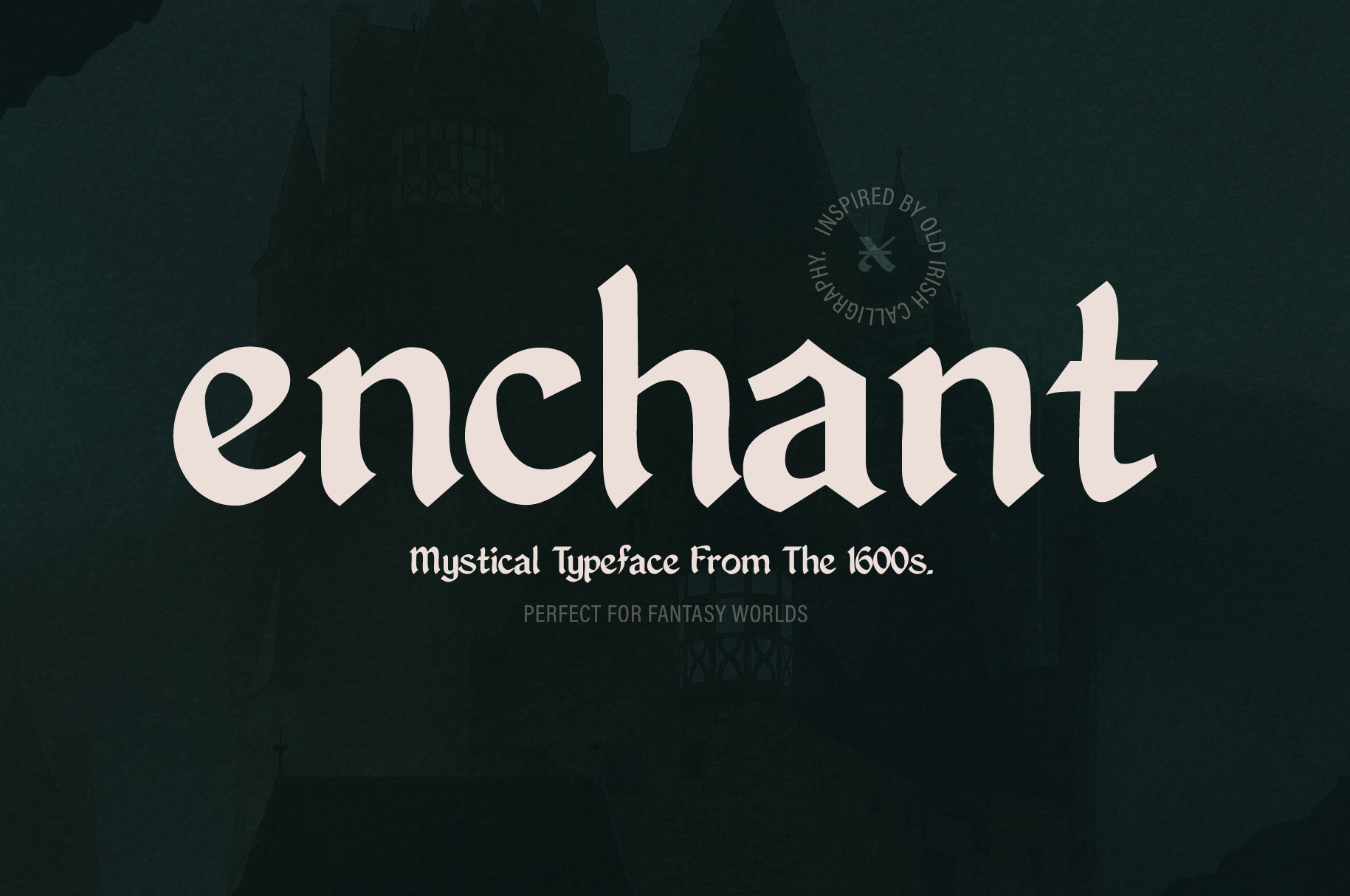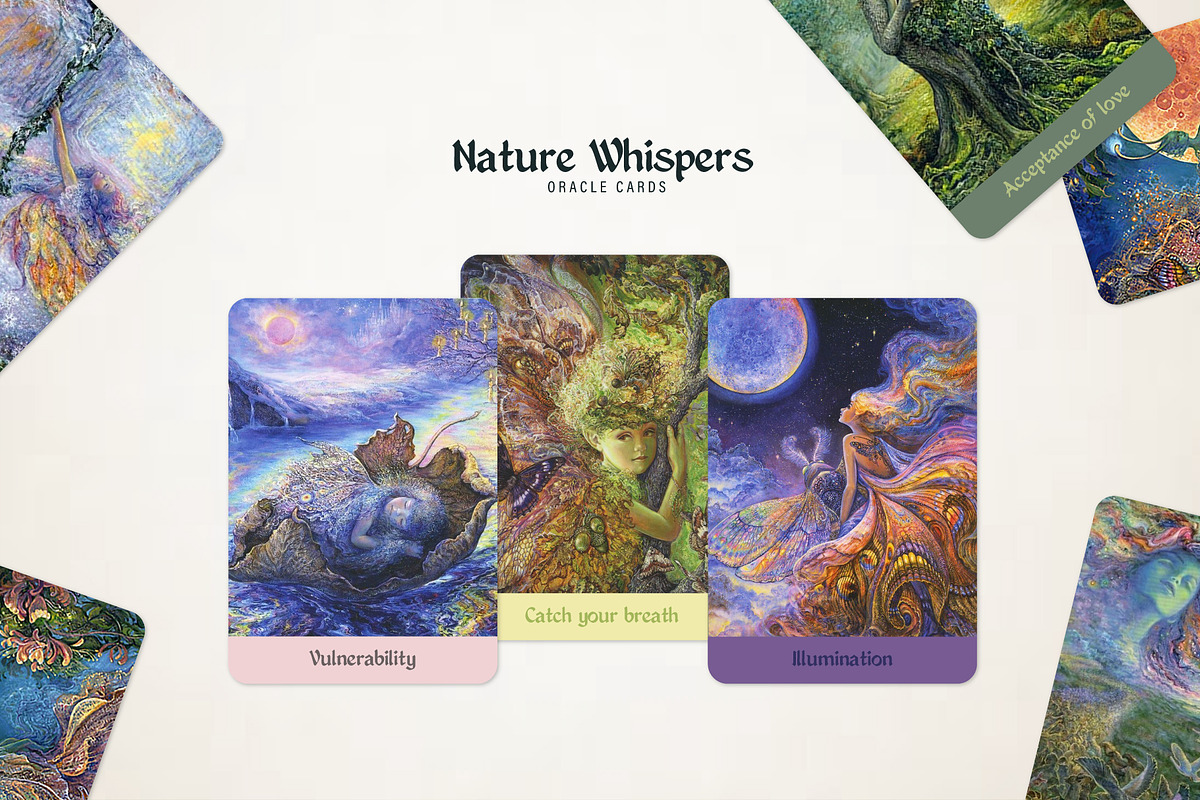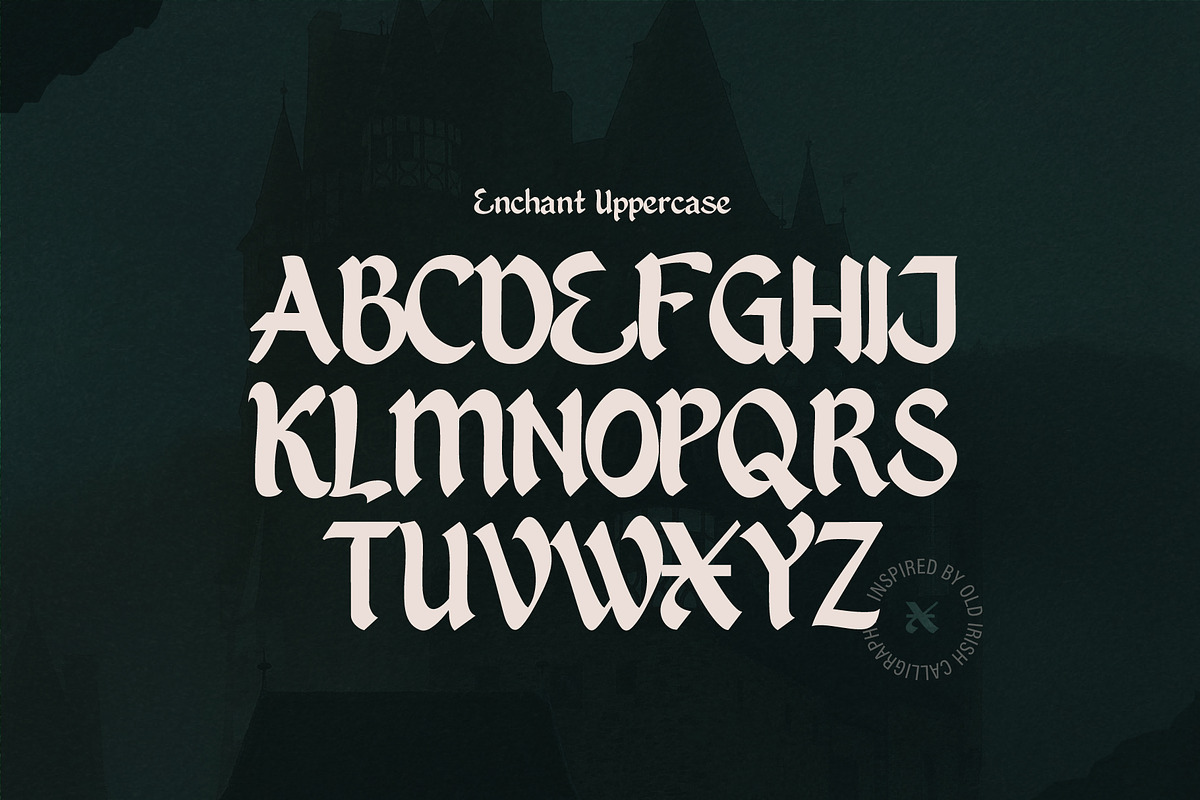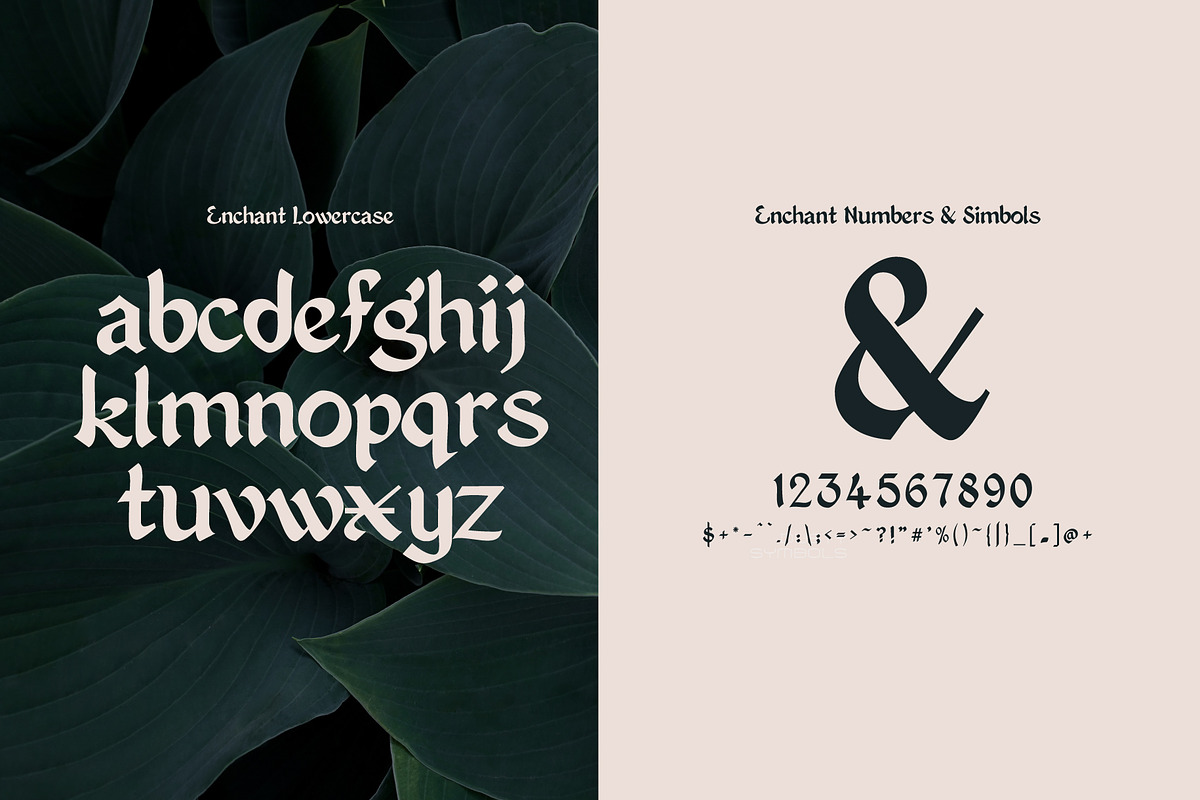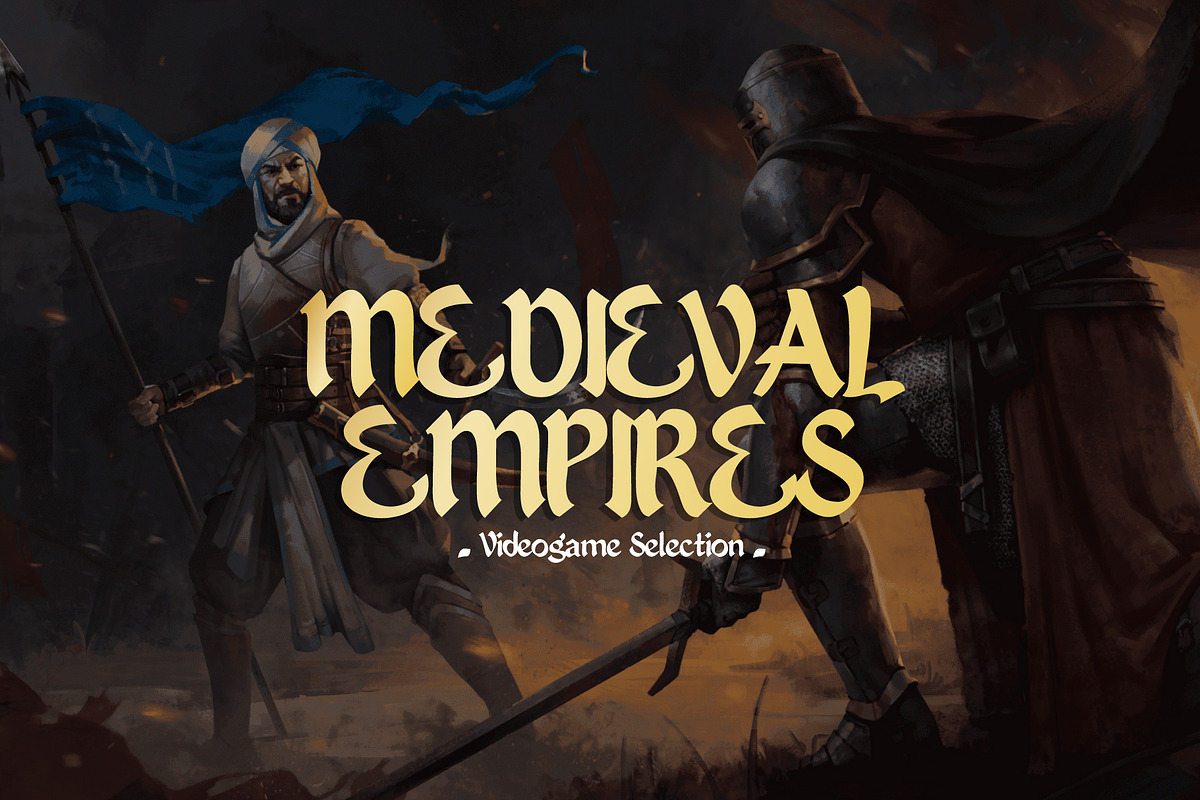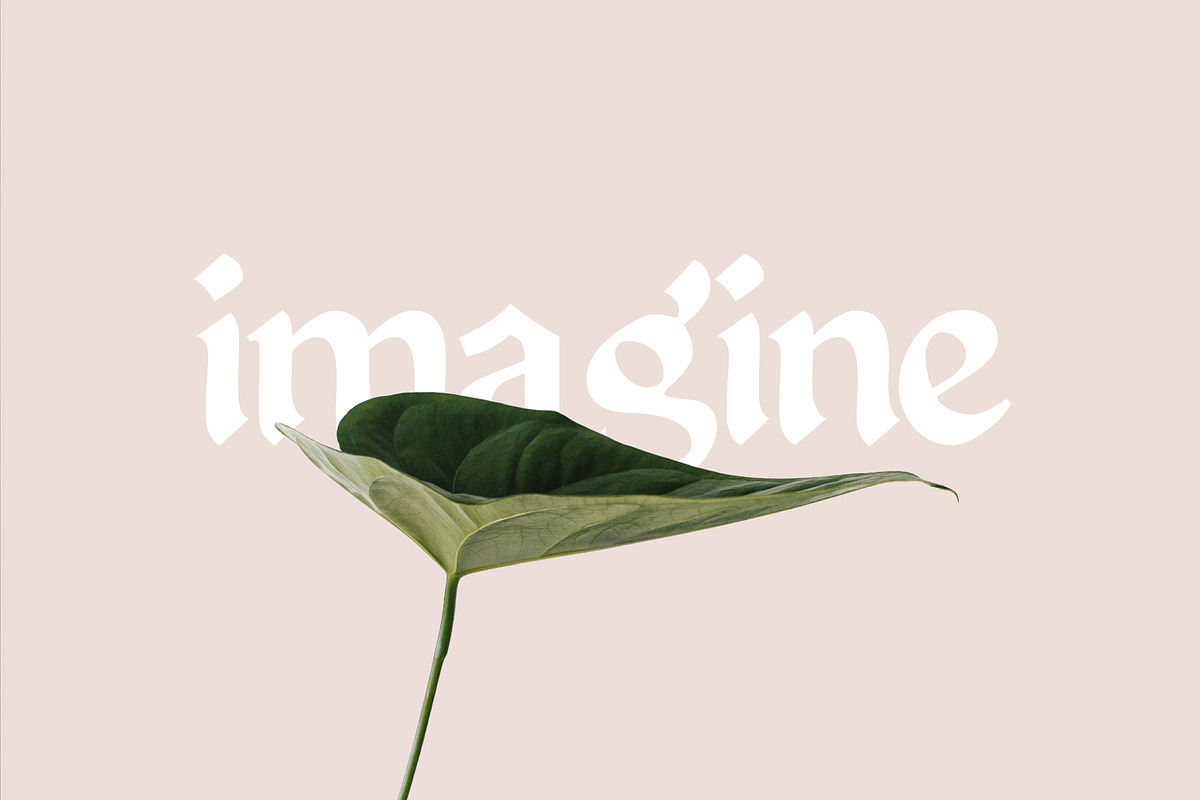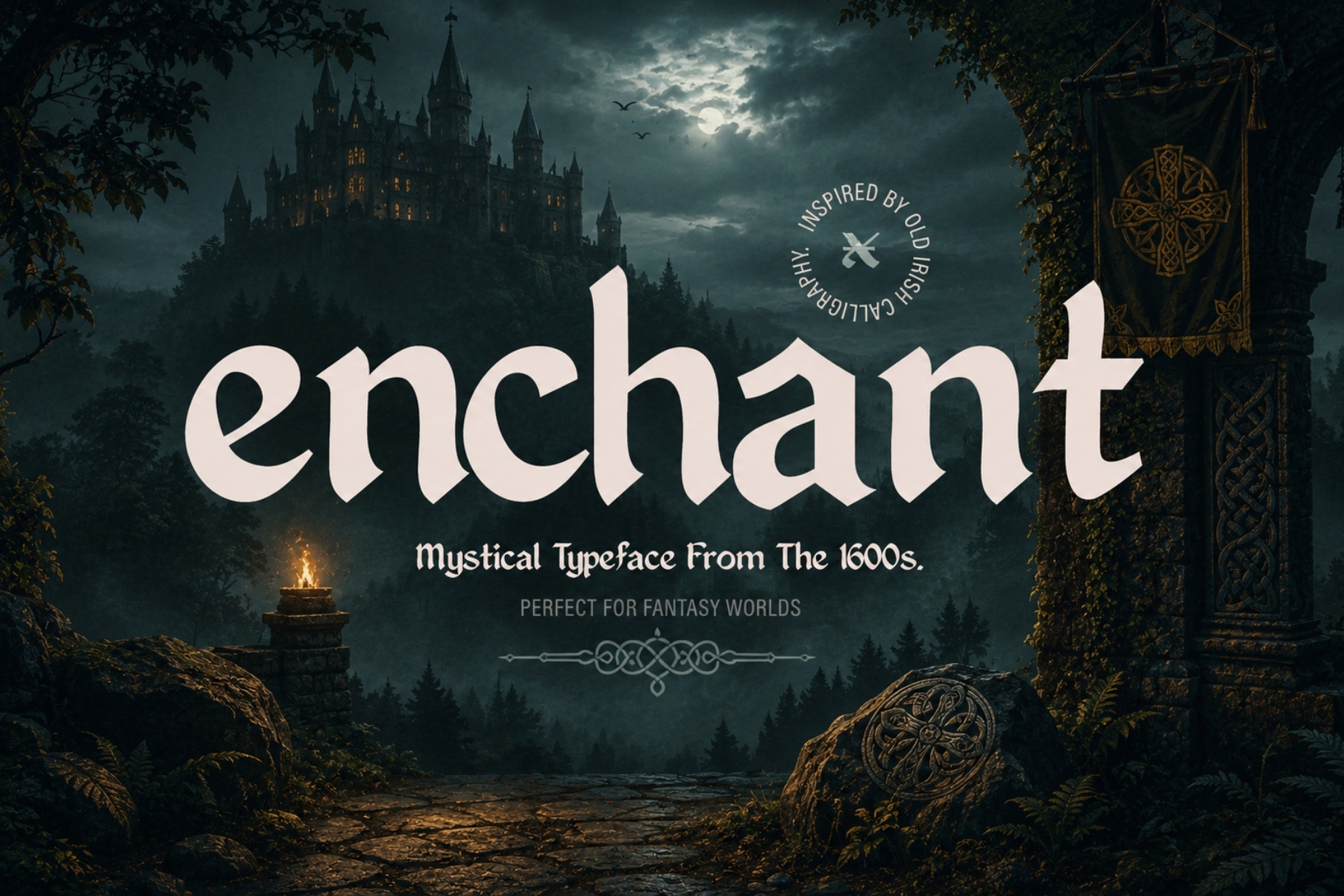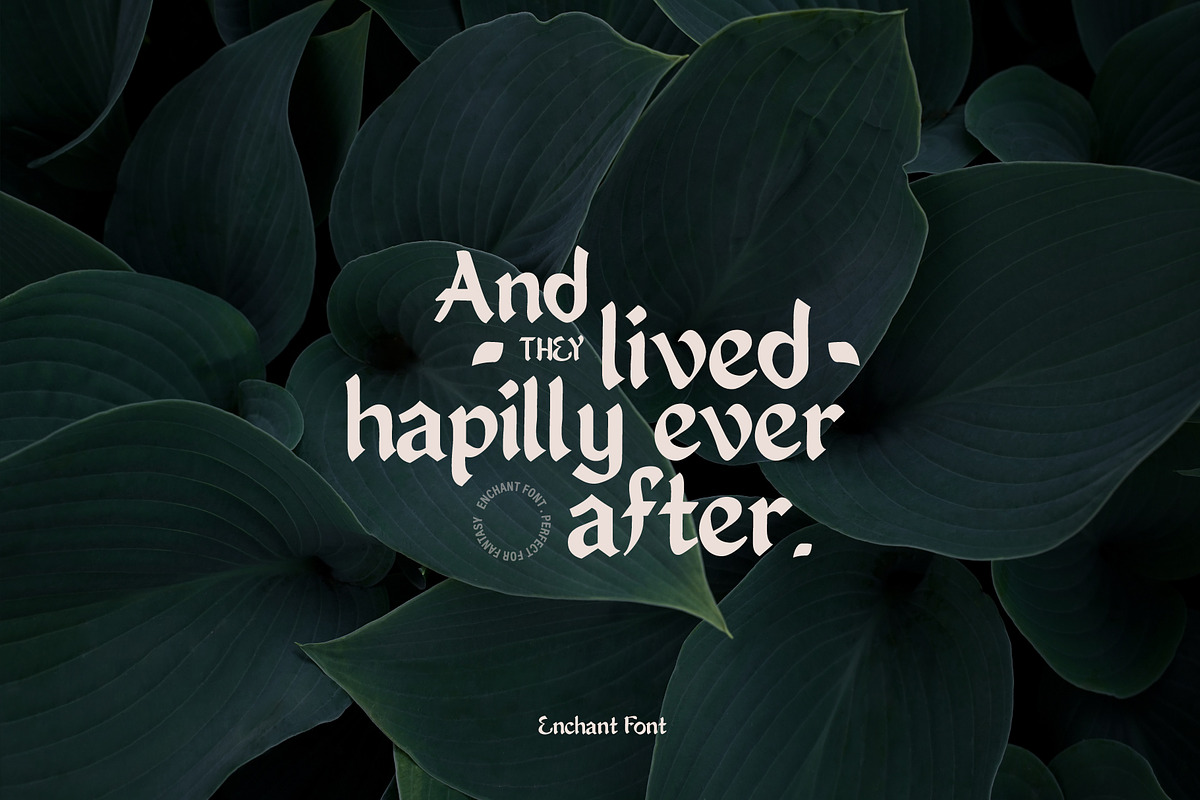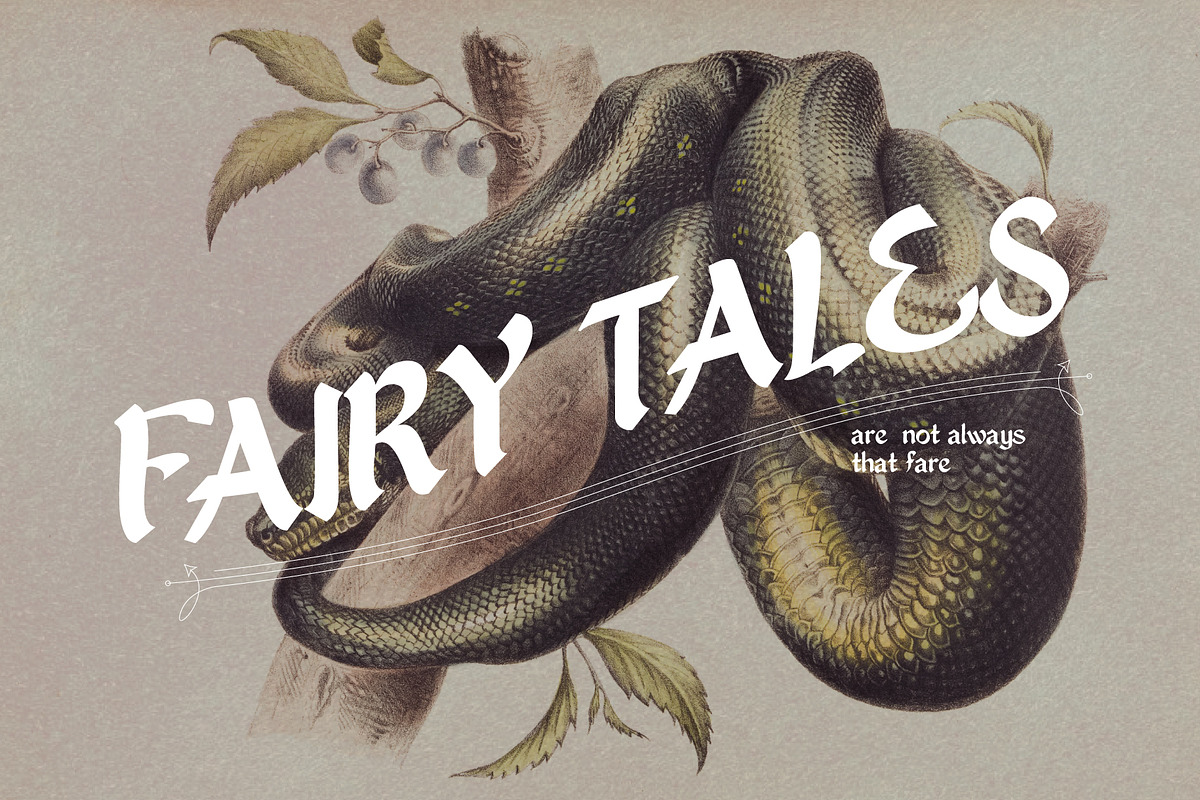
Enchant - Mystical 1600s Typeface
Enchant is a Celtic inspired typeface from the 1600s. This calligraphy font is legible, beautiful, and distinctive. You can use Enchant to create mesmerizing books covers, social media posts, magazines, packaging, logos, t-shirts, emblems, posters, and pretty much anything else you can think of. If you want to replicate that medieval/Celtic look, then Enchant is for you.